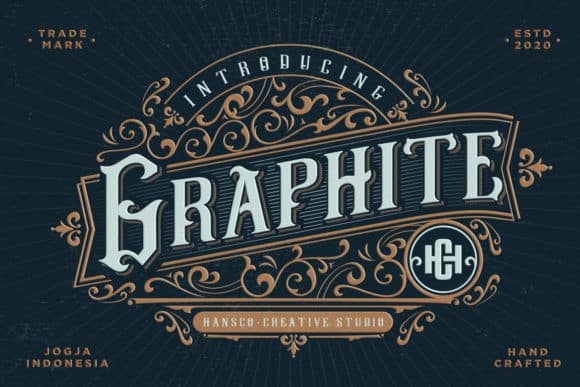
Graphite Blackletter Font Free
Graphite Blackletter Font is a display typeface with Semi-Vintage Style. It’s a sweet and cool display font with a unique look. Fall in love with its vintage look and beautiful ornaments.